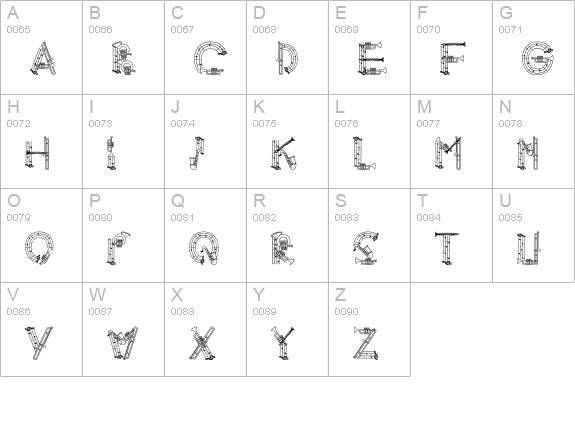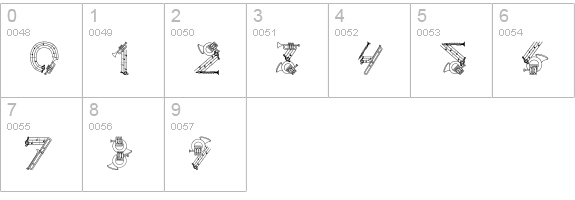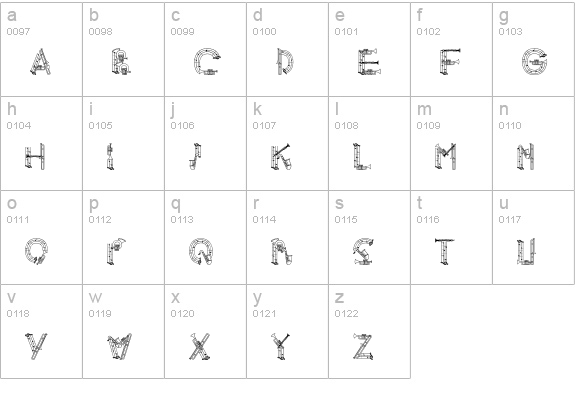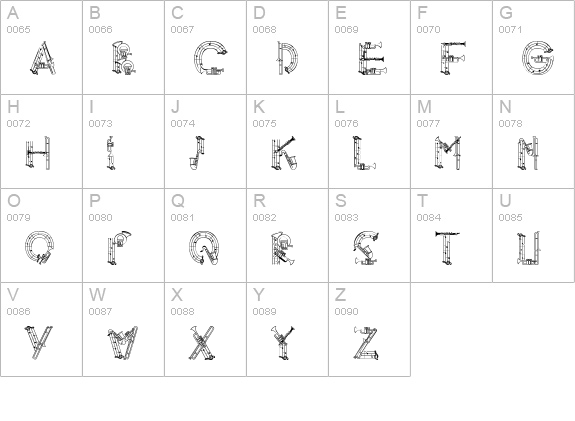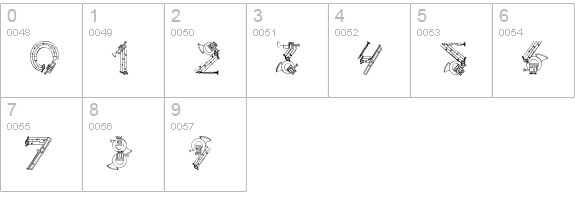
AlphaMusicMan Font Details
Introducing AlphaMusicMan, a captivating and dynamic font that encapsulates the essence of music and rhythm. Designed with precision and creativity, this font brings your words to life, making them dance and sing on the page. With its bold and sleek letterforms, AlphaMusicMan exudes confidence and energy, making it perfect for any project that aims to make a statement. Whether you're designing album covers, posters, or branding materials for a music festival, this font will ensure that your message is heard loud and clear. But what sets AlphaMusicMan apart is not just its stunning aesthetics, but also its accessibility. We believe that creativity should be free and readily available to everyone, and that's why we are thrilled to offer AlphaMusicMan as a free font. You can easily download it at FontsMarket.com, where it can be yours to use and enjoy in all your creative endeavors. AlphaMusicMan is versatile and adaptable, allowing you to unleash your imagination and explore the endless possibilities of typography. Its seamless integration with various design software makes it effortlessly accessible for both beginners and professionals alike. So, whether you’re a passionate musician, a graphic designer, or simply someone who appreciates the power of beautiful typography, AlphaMusicMan is the perfect font to accompany your creative journey. Download it for free today at FontsMarket.com and let your words become the melody that resonates with the world.